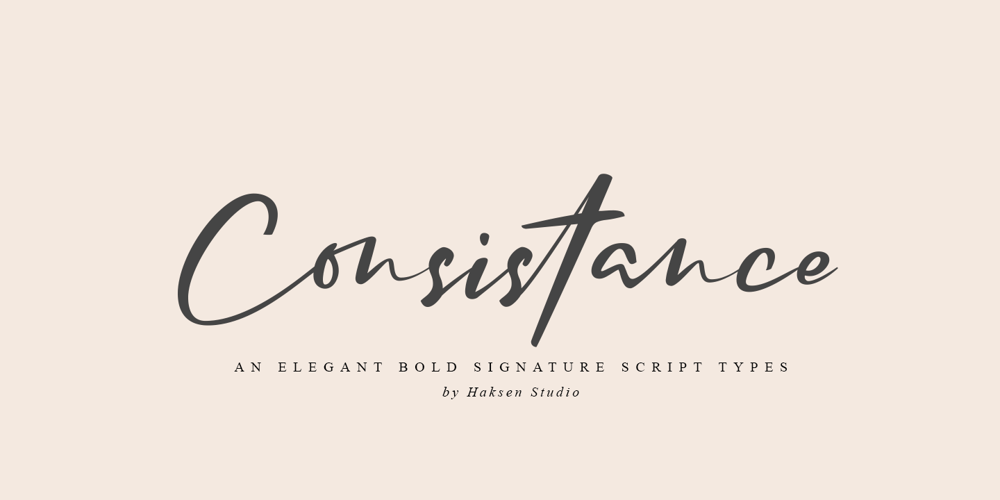
Consistance Font Family was designed by Sarwo Edhi Prayitno and published by Haksen. Consistance contains 1 styles and family package options. Consistance is a stylish modern and natural handwritten script font with casual bold signature script type. It is perfect for branding, wedding invites and cards, and maybe for red wine label.Consistance includes full set of gorgeous uppercase and lowercase letters, numerals, a large range of punctuation and ligatures.In order to use the beautiful ligatures, you need a program that supports OpenType features such as Adobe Illustrator CS, Adobe Photoshop CC, Adobe Indesign and Corel Draw.but if your software doesn’t have Glyphs panel, you can install additional swashes font files.Thanks and have a great day,Haksen Studio